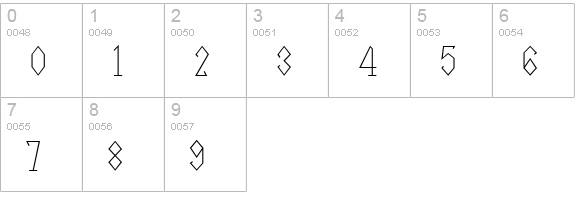
LineDrive Regular is the standard, neutral variant in the LineDrive typeface family \xE2\x80\x94 well suited to general body text, paragraphs, and standard typographic work.
LineDrive Regular font is a modern and versatile typeface that combines sleek lines with a sense of movement. Its clean and dynamic design makes it perfect for a wide range of projects, from branding to editorial design. With its balanced proportions and distinctive style, LineDrive Regular font adds a touch of sophistication to any text or headline. Best of all, LineDrive Regular font is available for free download at FontsMarket.com. This means you can easily access this high-quality font and use it in your projects without any cost. Whether you're a designer looking to add a fresh look to your work or a business owner wanting to elevate your branding, LineDrive Regular font is a great choice that won't break the bank. Download it today and see how it can enhance your designs!